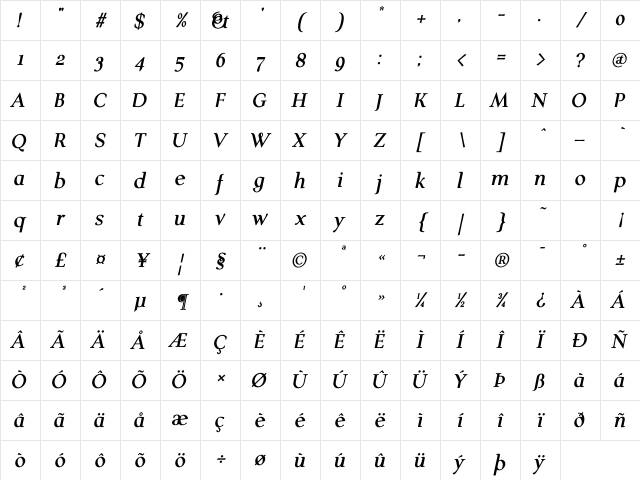
Complete Quaaykop Medium Italic glyph index. Displaying only characters natively supported by Quaaykop Medium Italic font.
Quaaykop is a composed and adaptable typeface that performs quietly and consistently across a wide range of design contexts. The slanted form adds forward momentum and visual energy.